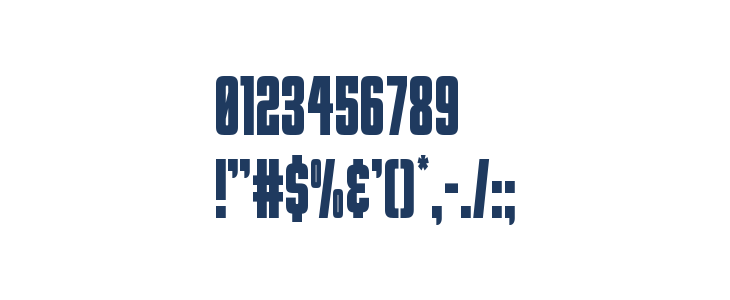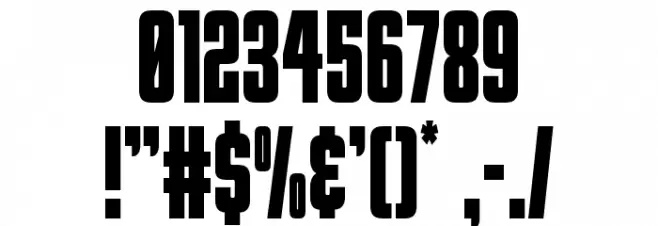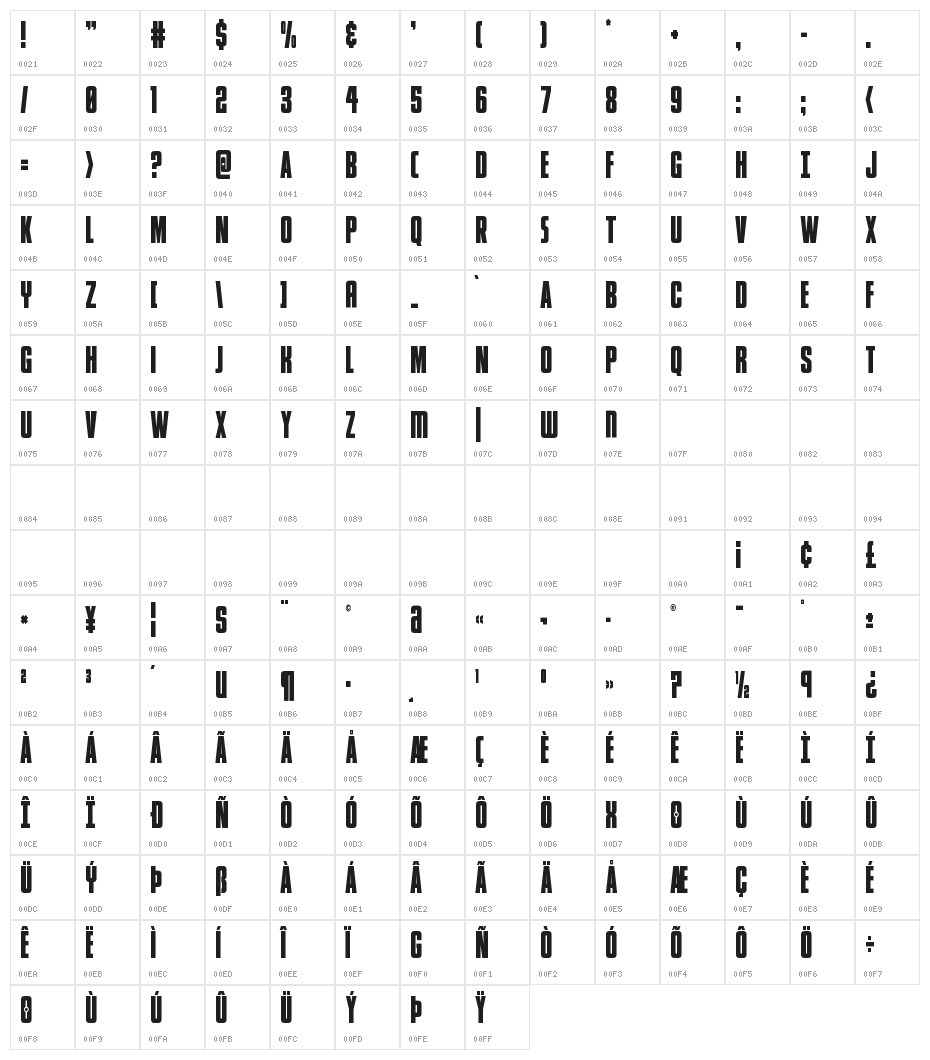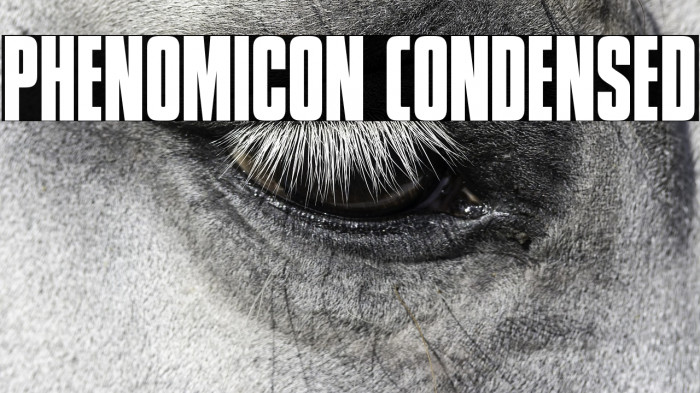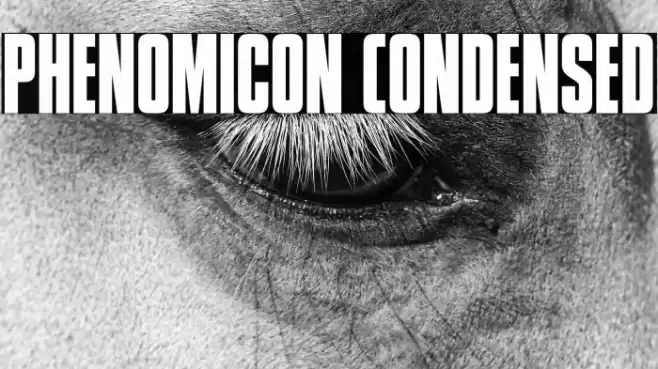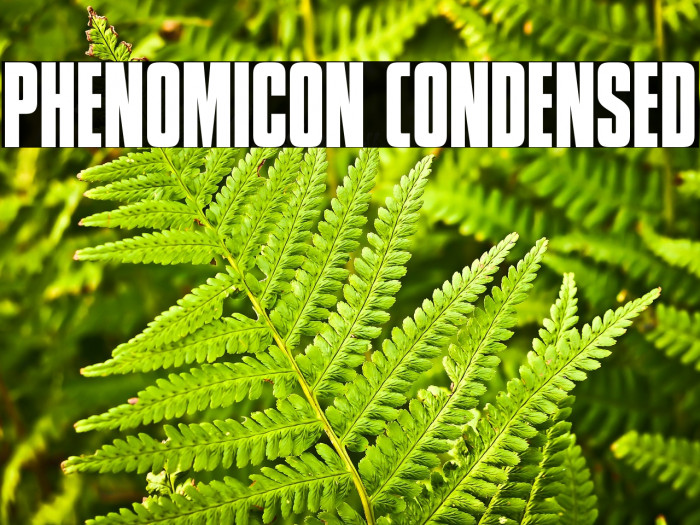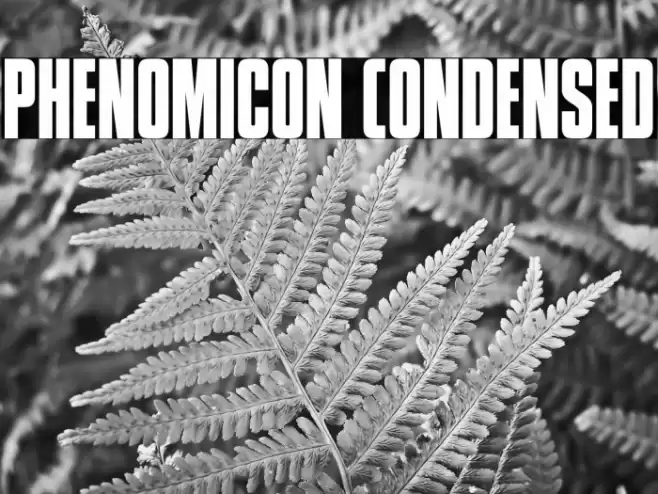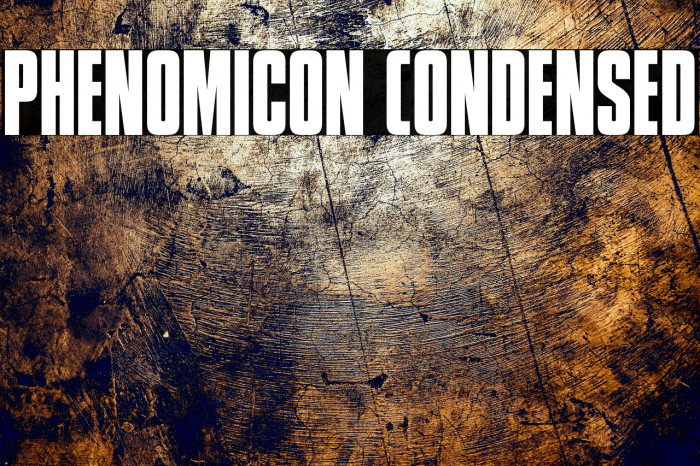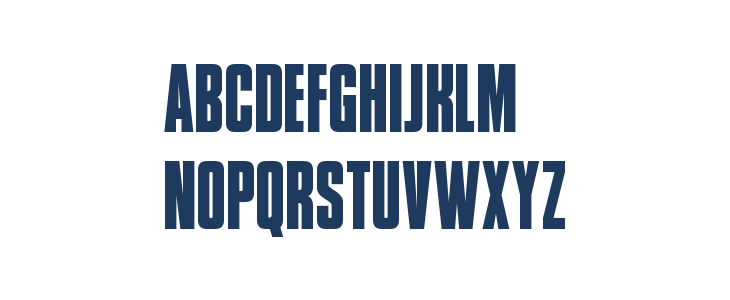
Phenomicon Condensed Font
Phenomicon Condensed Description
This font features a bold and impactful design with a condensed width, making it ideal for creating strong visual statements. The uppercase letters are tall and commanding, while the numbers and special characters maintain the same boldness, ensuring consistency across all text elements. The strokes are thick and uniform, providing a sense of stability and strength. The overall style is modern and assertive, suitable for projects that require attention-grabbing typography.
A bold, condensed font with a modern and impactful style from Regular fonts.
- Font: Phenomicon Condensed
- Proposed Projects: Ideal for posters, headlines, branding, and any project that requires a strong visual impact.
- Character Spacing: Tight